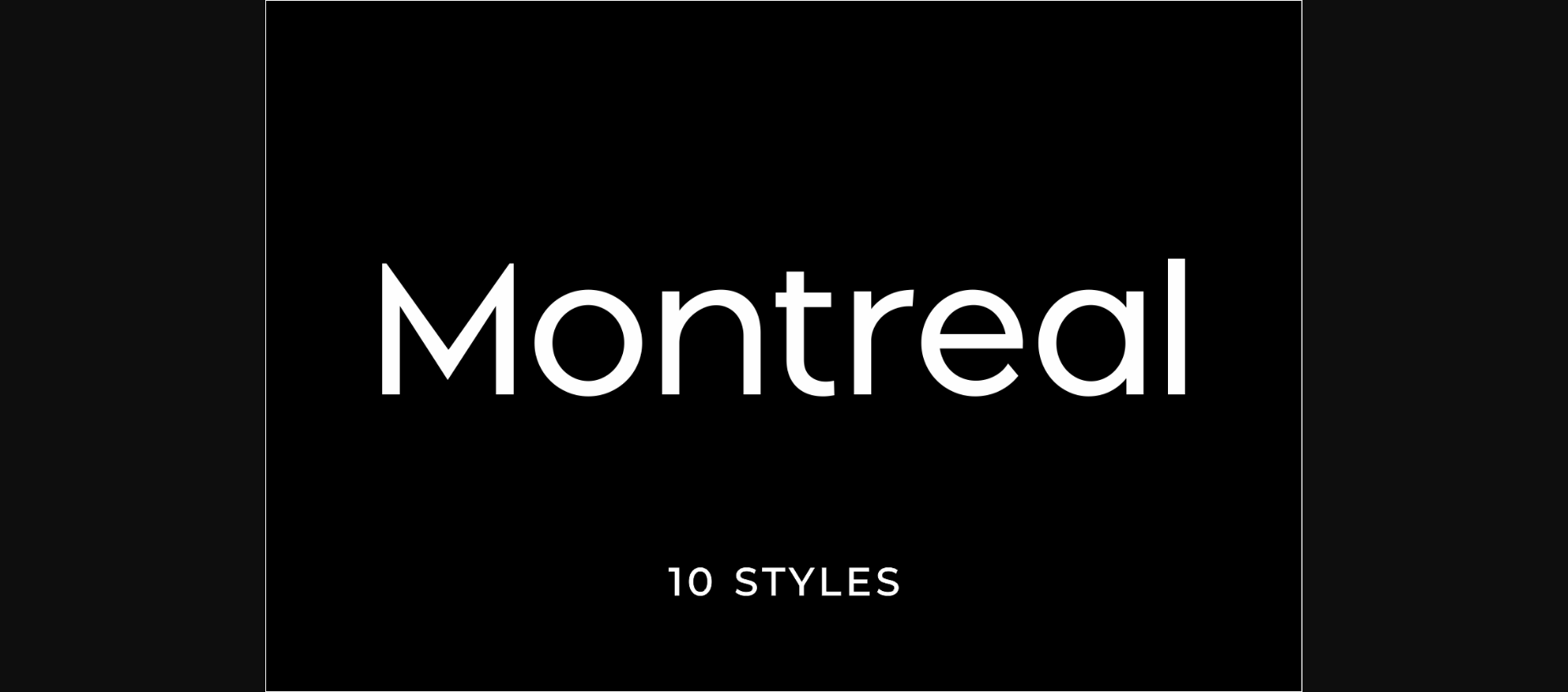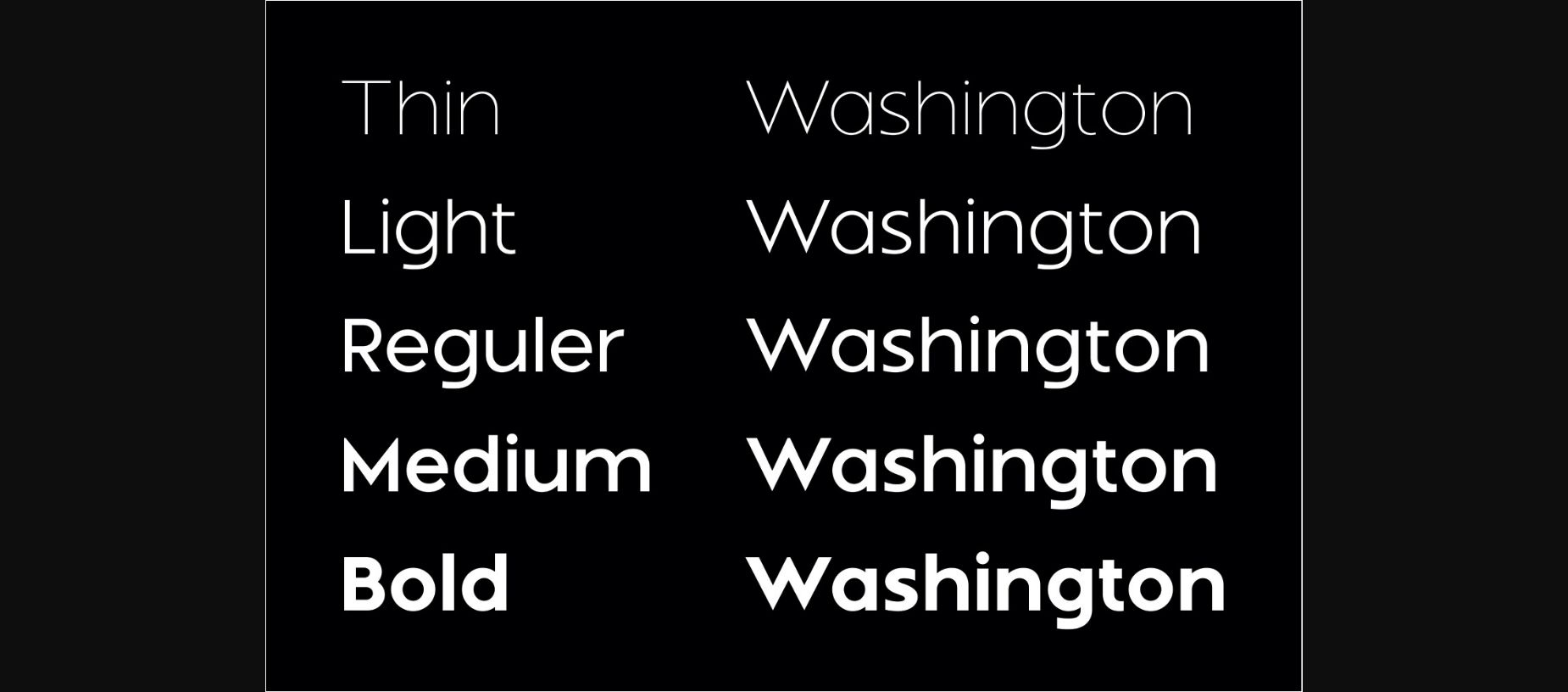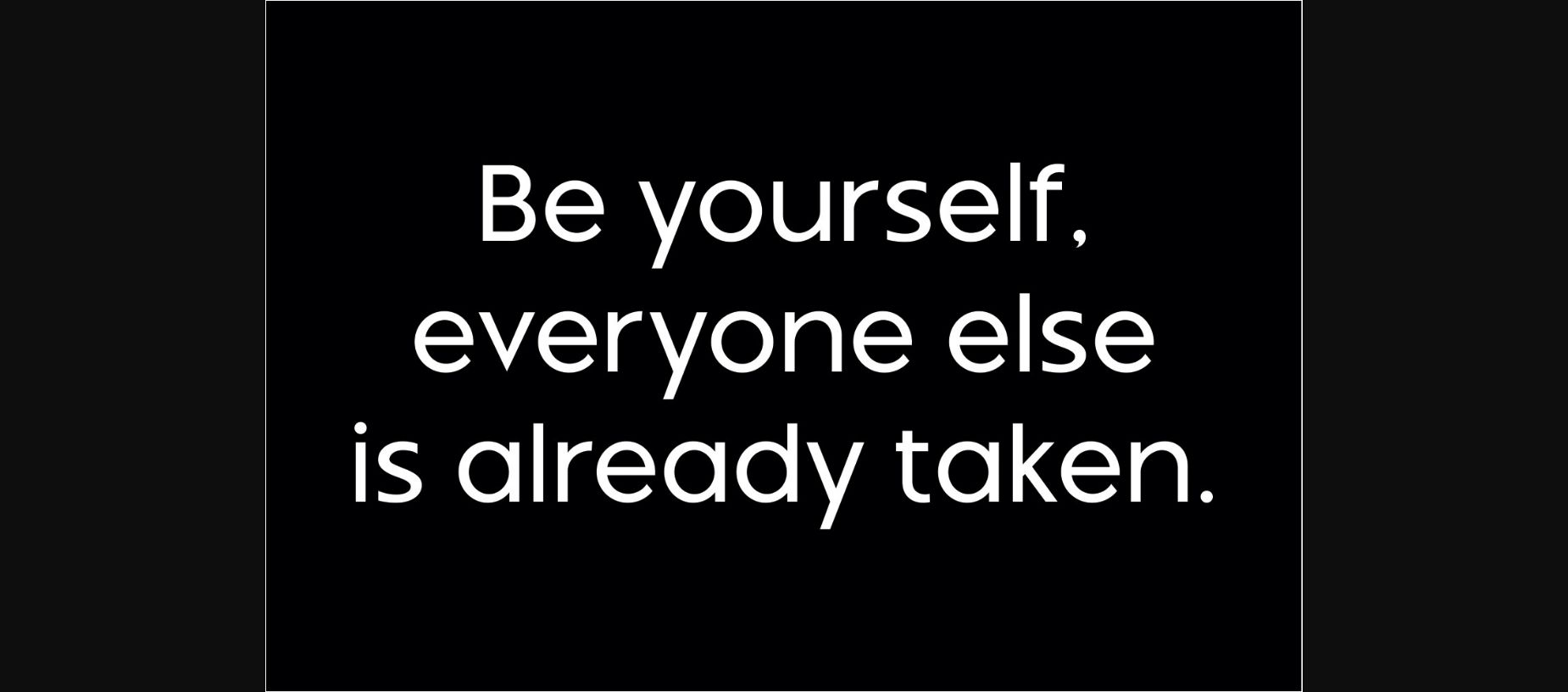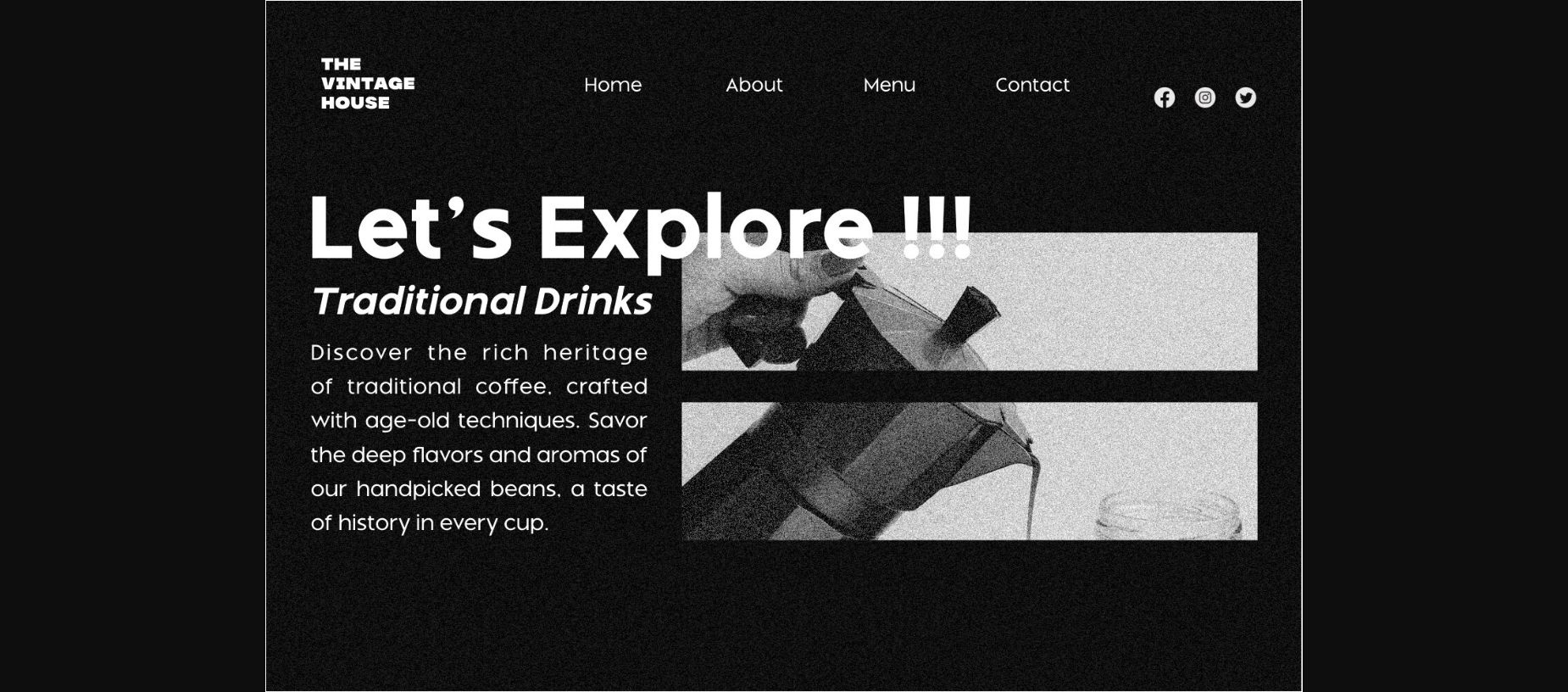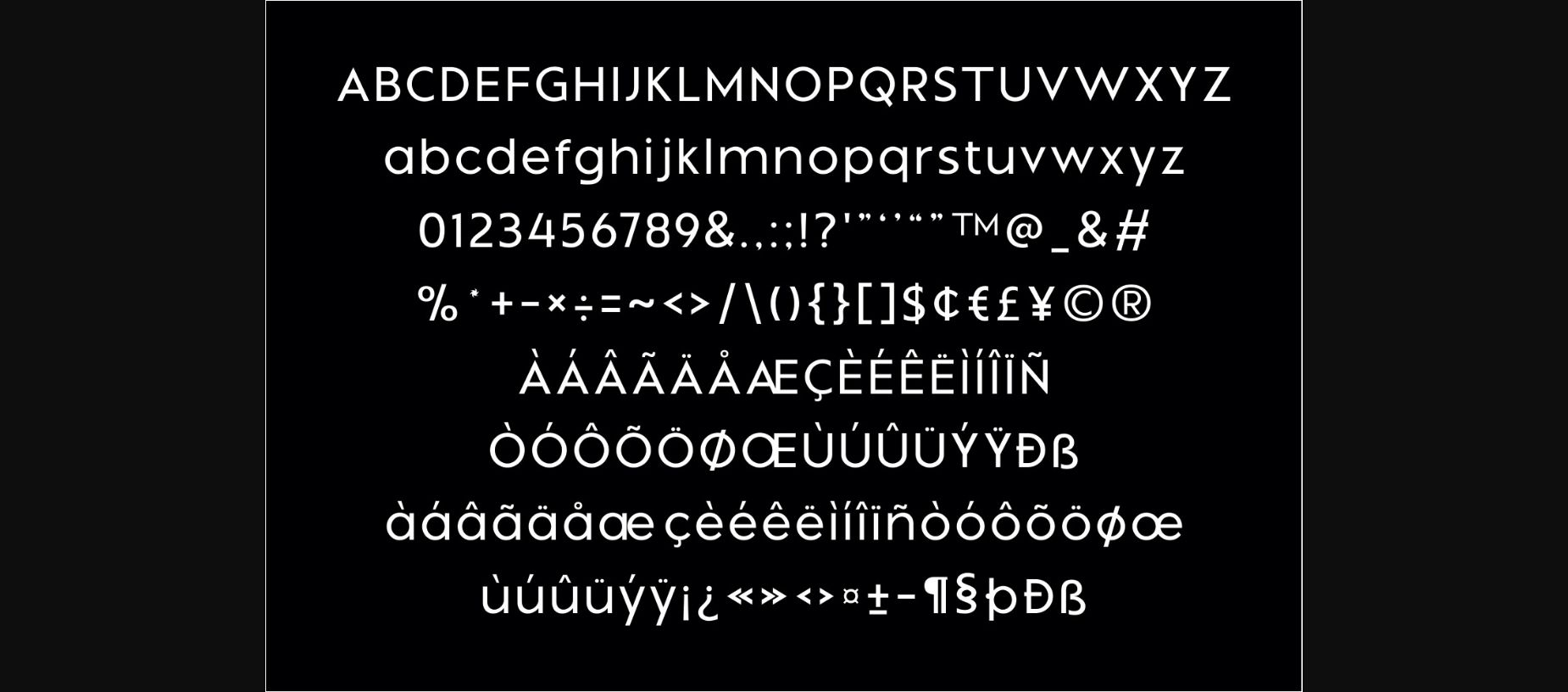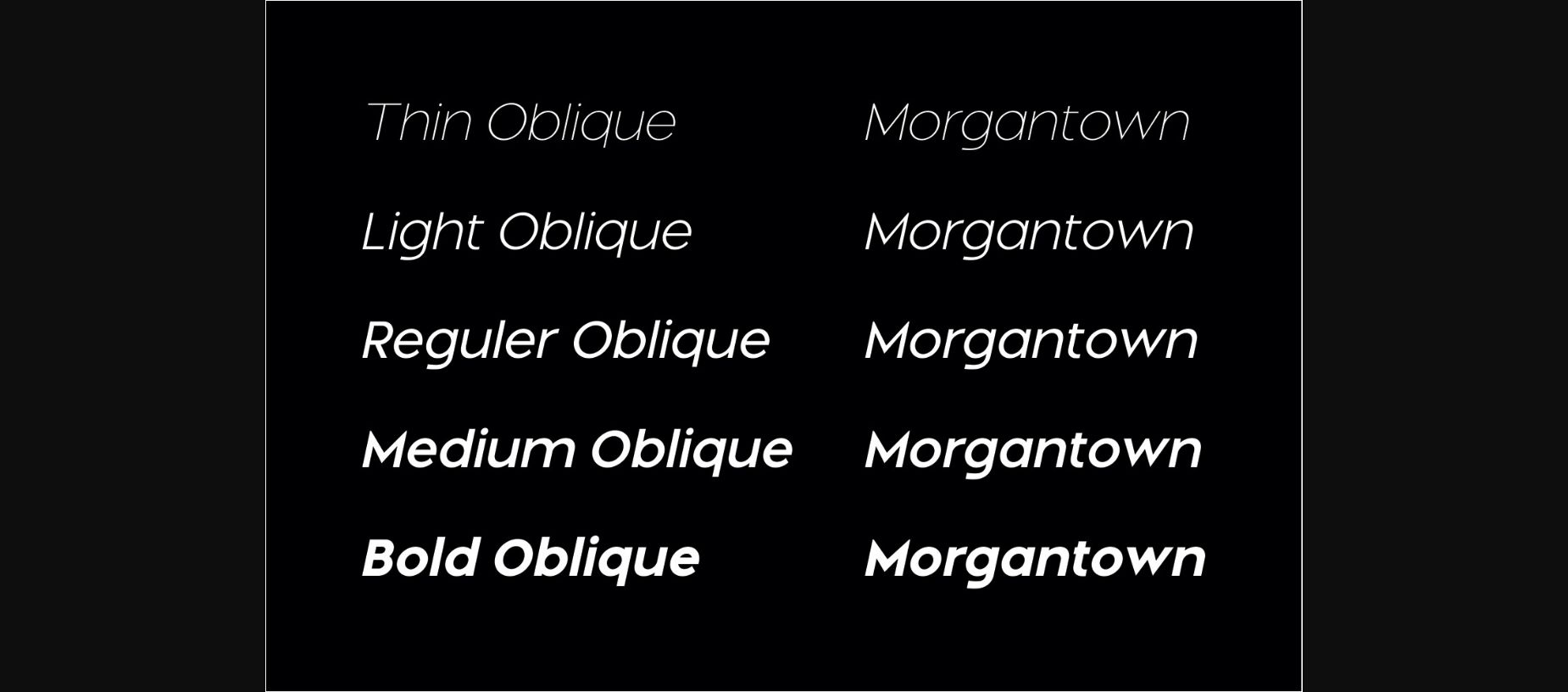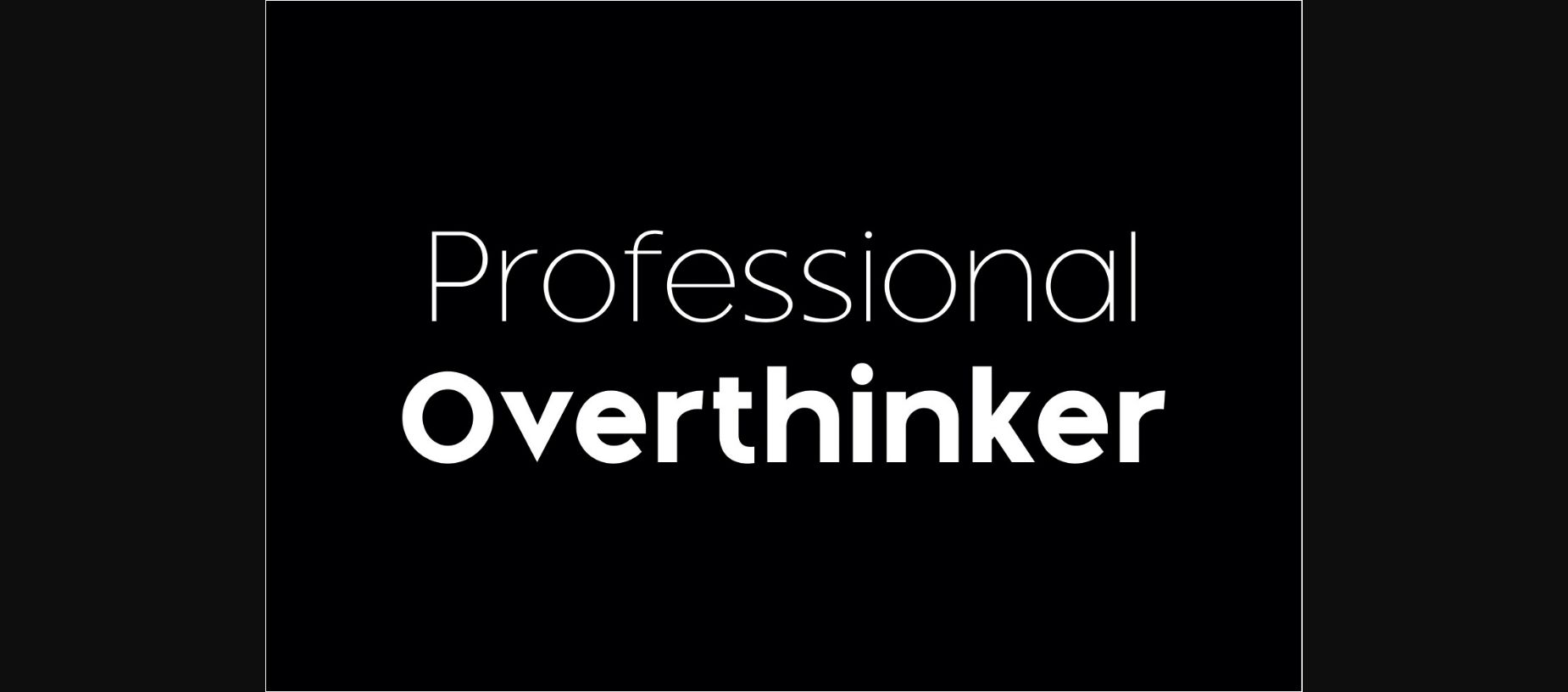
Montreal Font
About Montreal Font
Montreal is a stunning typeface that belongs to the geometric sans-serif category, boasting a versatile range of 10 distinct styles. Each style within this typeface family is meticulously crafted to bring a modern and minimalist aesthetic to your design projects. The geometric design of Montreal’s letterforms is characterized by its clean lines, sharp angles, and even proportions, making it an ideal choice for those seeking a contemporary and sophisticated look in their typography.
The Montreal typeface family offers a variety of styles that cater to different design needs. Whether you’re working on a sleek corporate identity, a futuristic tech project, or a minimalist editorial layout, Montreal has you covered. From the bold and eye-catching Montreal Black to the elegant and understated Montreal Light, each style exhibits a harmonious blend of geometric precision and legibility, ensuring your message shines through with clarity and style.
Montreal’s versatility and modernity make it a go-to choice for designers looking to make a lasting impression. Whether you’re designing a poster, website, logo, or any other visual content, Montreal’s 10-style font family provides the flexibility and visual impact you need to elevate your designs to the next level, making it a valuable asset for any creative professional.